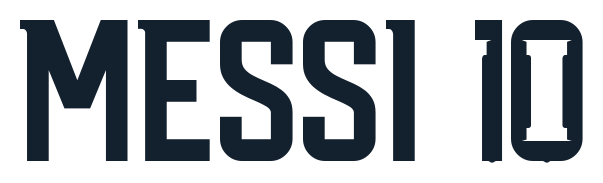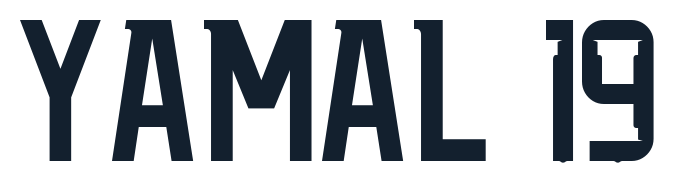
Spain 2026 World Cup Font Kit - Exclusive La Roja Number Style
The Spain 2026 World Cup Font Kit brings the bold, geometric number style of Spain’s exclusive World Cup jersey typography to your designs. This custom typeface, different from standard Adidas fonts, features sharp angles and distinctive cuts for a modern, standout look. It is perfect for designers and fans creating jerseys, graphics and merchandise for La Roja.​
• Bold geometric style matching the exclusive Spain World Cup kit font​
Use this kit for custom jerseys, namesets, score graphics, posters, social media thumbnails, banners and fan merchandise. The clean yellow-on-red number design from your preview image ensures high visibility on Spain’s classic colors.
• Made for football: Perfect for jersey printing, kit mockups, match graphics and fan projects
• Exclusive Spain style: Captures the custom geometric typeface unique to Spain’s 2026 World Cup kits
The strong, angular shapes give your football designs a professional, tournament-ready appearance that stands out on any background.
Use this Spain 2026 World Cup Font Kit to capture La Roja’s energy in your designs – from custom shirts to World Cup graphics.